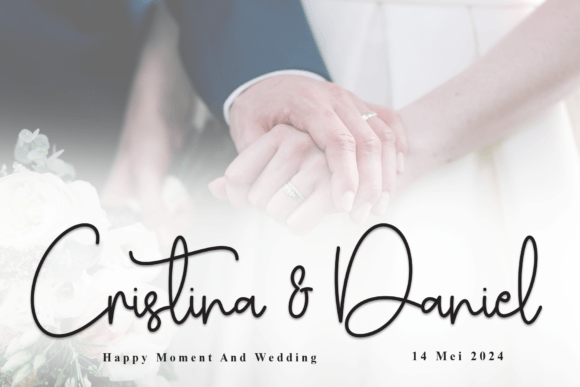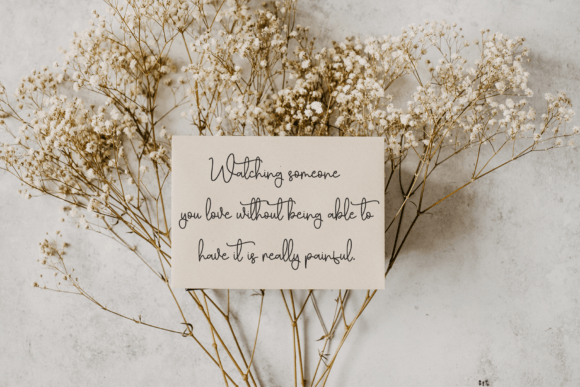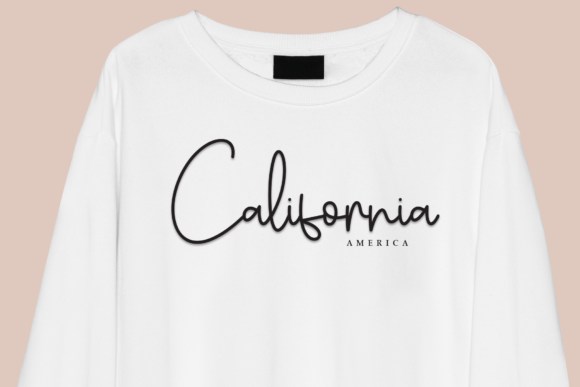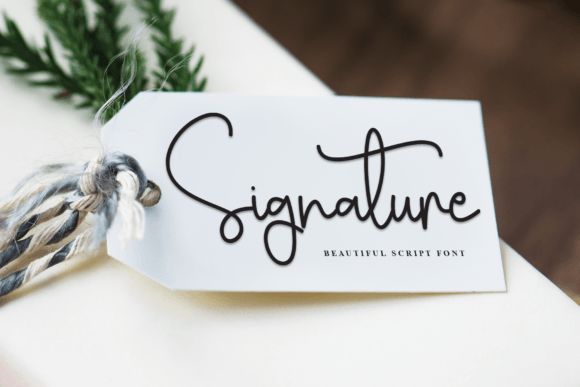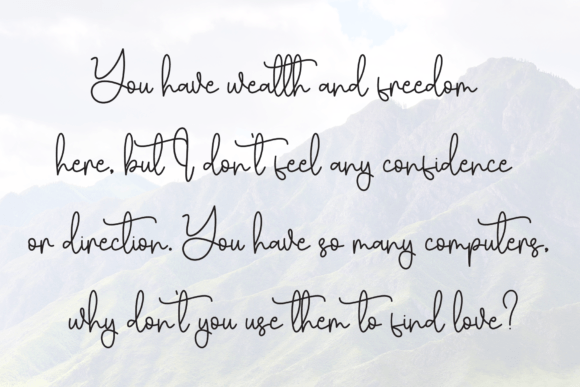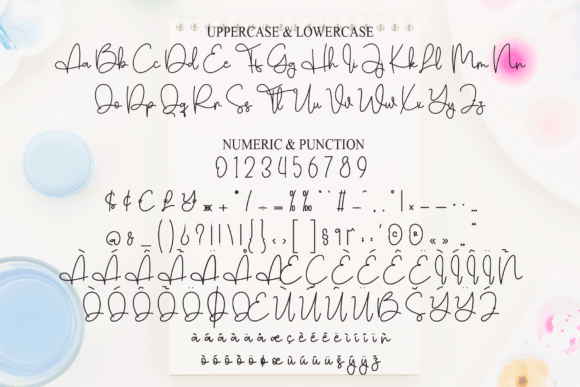
Baby Notebook Font: Elevate Your Designs with Elegance and Class
In the world of typography, few fonts manage to capture the essence of timeless elegance and contemporary style as effectively as the Baby Notebook Font. This trendy handwritten font is inspired by classic calligraphy, bringing an air of sophistication and impeccable form to any design project it touches. Whether you’re a designer looking to add a touch of class to your creations or a crafter seeking the perfect font for your DIY projects, Baby Notebook Font is an excellent choice.
The Inspiration Behind Baby Notebook Font
Baby Notebook Font draws its inspiration from the traditional calligraphy that has been a cornerstone of elegant writing for centuries. The creators of this font have skillfully blended the classic elements of calligraphy with modern design sensibilities, resulting in a font that feels both nostalgic and refreshingly contemporary. This blend of old and new is what sets Baby Notebook Font apart, making it a versatile tool for a wide range of design applications.
Characteristics of Baby Notebook Font
Baby Notebook Font boasts several characteristics that make it a standout choice for designers and crafters alike:
- Handwritten with a Personal Touch: The font has a beautifully handwritten quality, giving it a personal and intimate feel that digital fonts often lack.
- Contemporary Atmosphere: Despite its classic inspiration, Baby Notebook Font has a distinctly modern feel, making it suitable for a variety of contemporary design projects.
- Elegance and Class: The font exudes elegance and class, capable of elevating the aesthetic of any project it’s used in.
- Impeccable Form: The attention to detail in Baby Notebook Font ensures that it maintains a high level of readability and aesthetic appeal.
Uses of Baby Notebook Font
The versatility of Baby Notebook Font makes it suitable for a wide range of applications, including but not limited to:
- Wedding and Event Invitations: Add a touch of elegance to your wedding or event invitations with this beautiful font.
- Branding and Logo Design: Use Baby Notebook Font to give your brand a sophisticated and memorable identity.
- Stationery and Greeting Cards: Elevate your handmade stationery and greeting cards with a font that feels personal and luxurious.
- Digital and Print Media: Whether it’s for a website, blog, magazine, or advertisement, Baby Notebook Font can add a level of sophistication to your content.
Baby Notebook Font is more than just a font; it’s a design element that can transform your projects with its elegance and class. Inspired by timeless classic calligraphy but infused with a contemporary atmosphere, this font is perfect for designers and crafters looking to add a touch of sophistication to their work. With its versatile application and beautiful, handwritten aesthetic, Baby Notebook Font is sure to become a staple in your design toolkit.